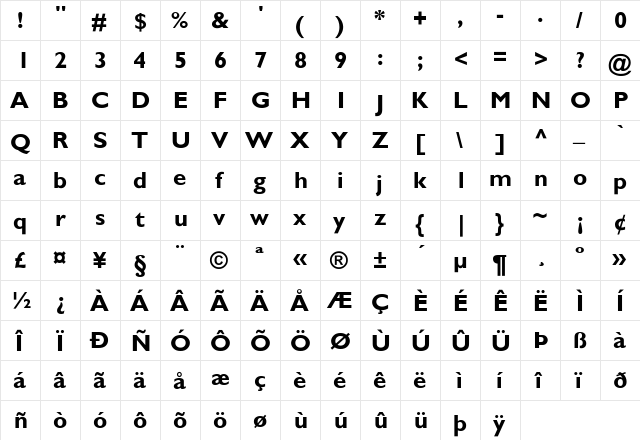
Hopkins-Bold Bold
Design Context for Hopkins-Bold Typeface
Hopkins-Bold offers clean, dependable letterforms without strong stylistic allegiance, making it a practical choice for designers who need flexibility. Its bold stroke weight gives it real presence on the page.